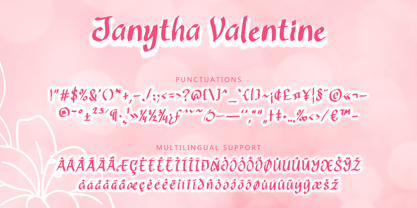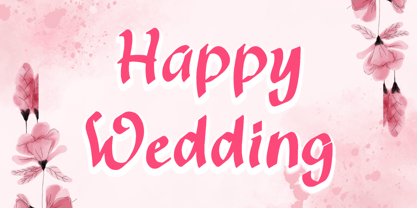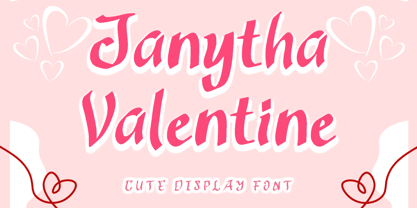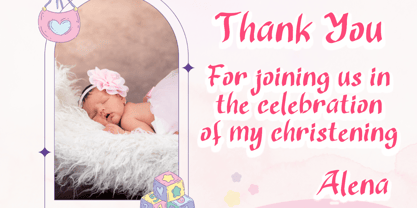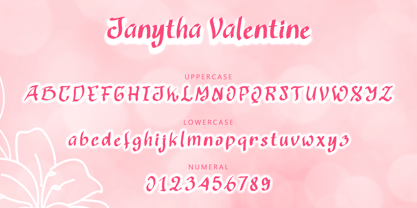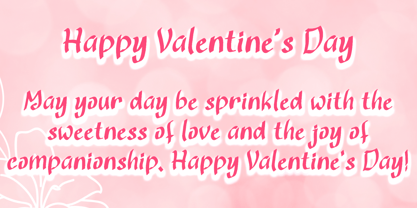
Janytha Valentine
by Yoga Letter
"Janytha Valentine" is a unique and sweet display font. It comes with uppercase, lowercase, numbers, punctuation, and multilingual support. It is perfect for use on Valentine's Day, Christmas, wedding, birthday, winter, invitations, stickers, posters, print branding, and more.